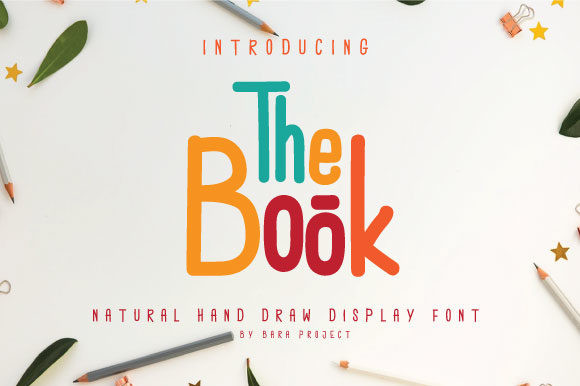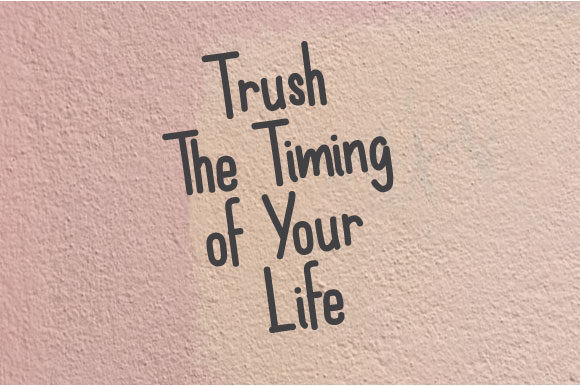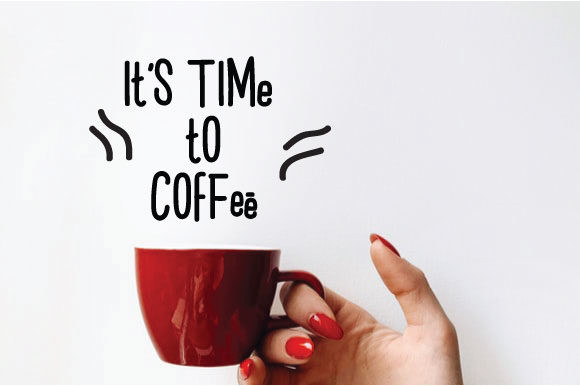
The Book Font
The Book features a playful and unique look which makes this display font stand out. Get inspired by its unique charm, and turn any design idea into a true standout!